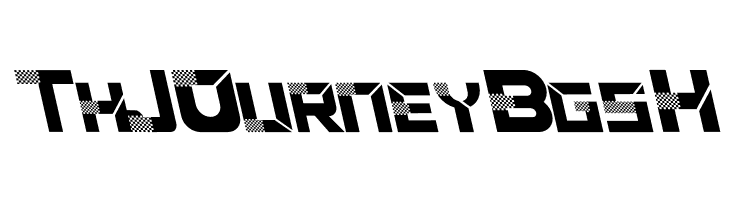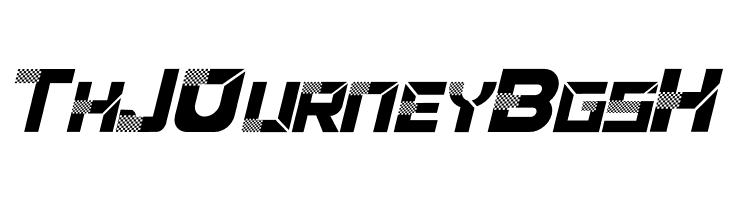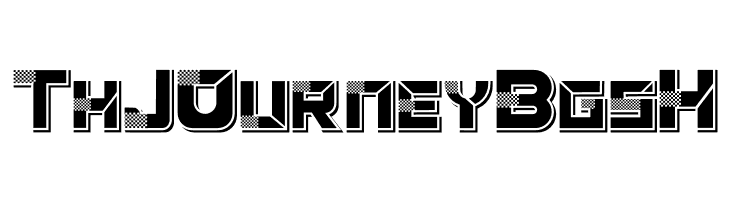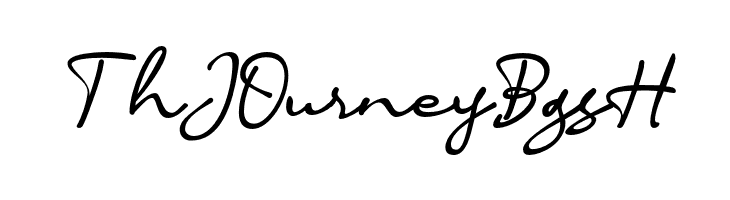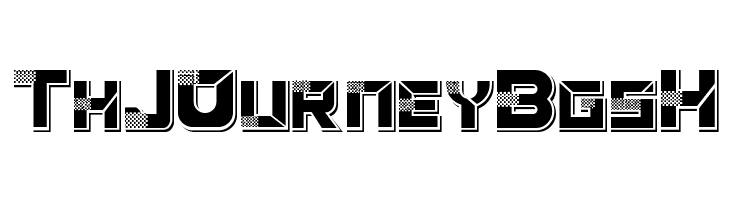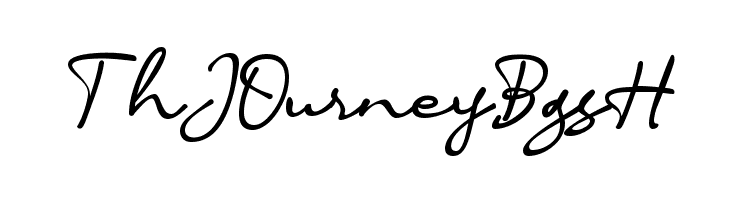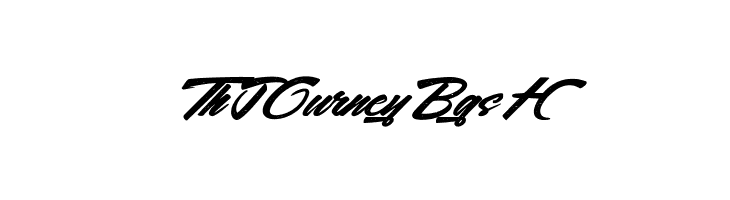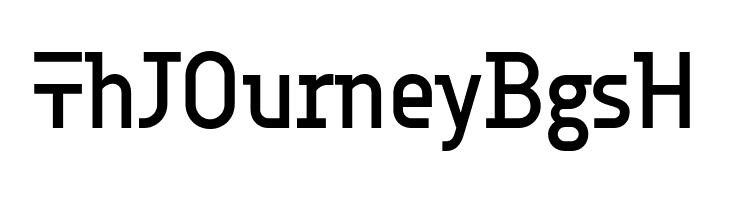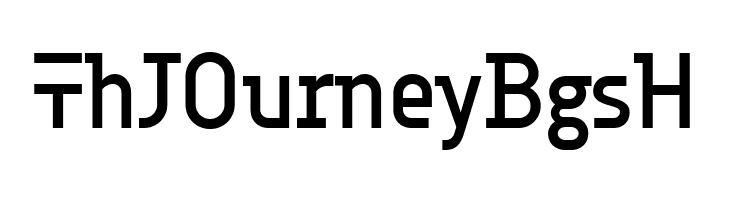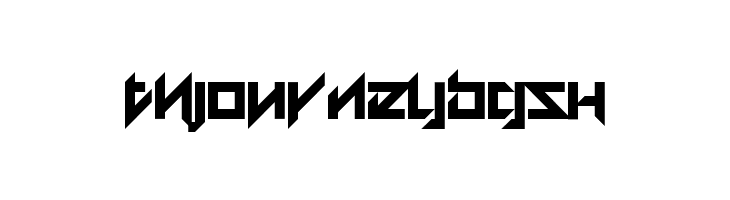
• ACCELERARE Demo Shadow
A bold, geometric font with a distinctive shadow effect, perfect for striking headlines.
• ACCELERARE Italic
A bold, italic typeface with a modern, dynamic design featuring checkered textures.
• ACCELERARE Leftalic
A bold, italicized geometric font with halftone texture and a modern, dynamic style.
• ACCELERARE Shadow
A bold, geometric font with a dynamic shadow effect for a modern look.
• Acceleration & Reaction
A bold, cursive script font with dynamic, sweeping strokes and elegant flourishes.
• Accountant Signature
A sophisticated, elegant handwritten font with a signature-like style.
• Accountant Signature
A sophisticated, elegant handwritten font with a signature-like style.
• Accuratist
A modern, geometric typeface with clean lines and uniform structure.
• Accuratist
A modern, geometric font with clean lines and uniform stroke width.
• Ace Adventure Regular